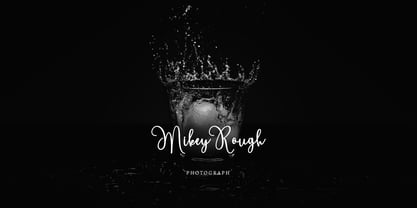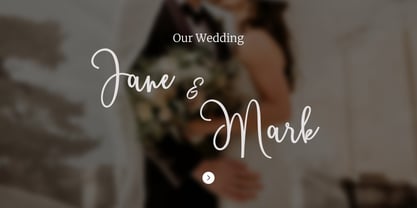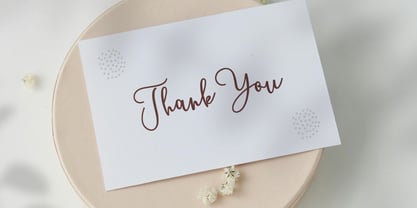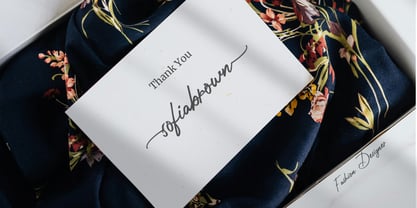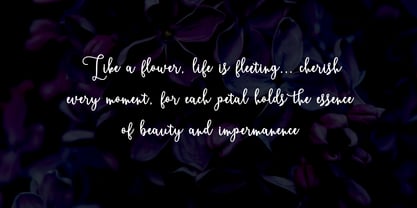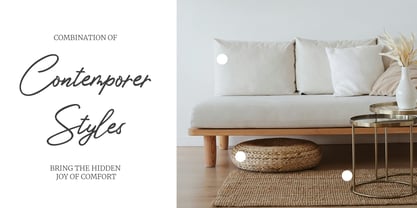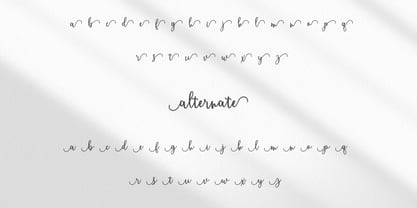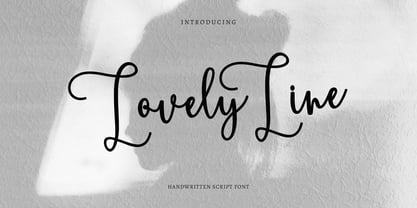
Lovely Line
by Appiqa Studio
The Lovely Line Font Family was designed by Lufti Nurfahmi and published by Appiqa Studio. Lovely Line contains 1 styles. More about this family
Introducing LovelyLine Handwritten Script Fonts, the epitome of elegance and grace in every curve and stroke. Crafted with meticulous attention to detail, LovelyLine offers a captivating collection of handwritten script fonts that exude charm and sophistication.
Designers: Lufti Nurfahmi
Foundry: Appiqa Studio